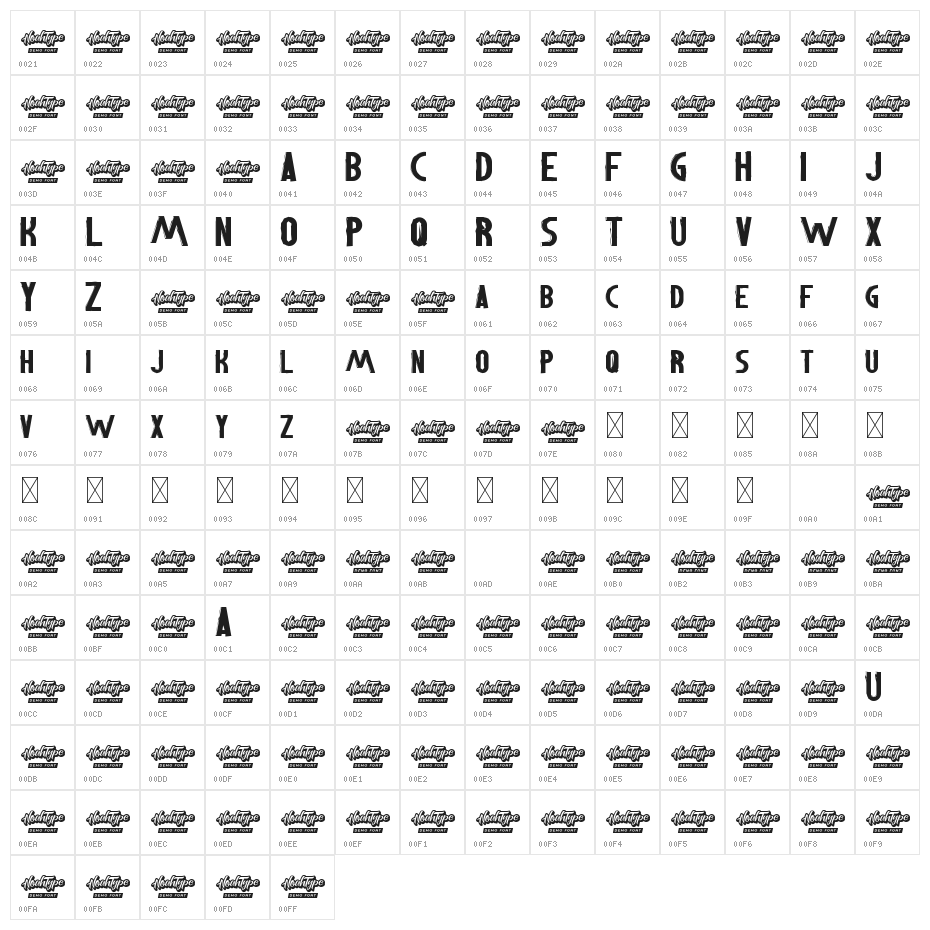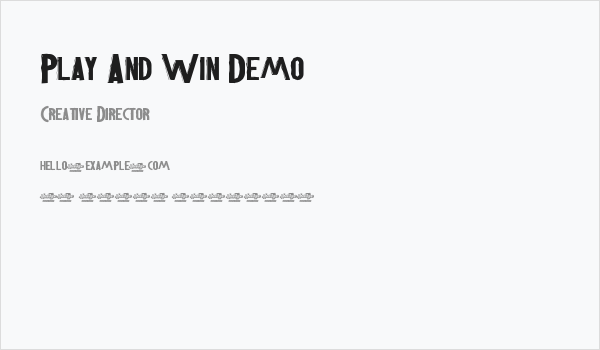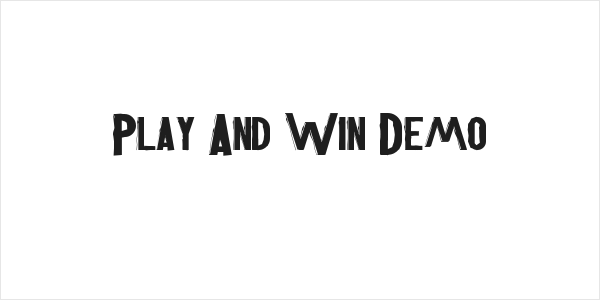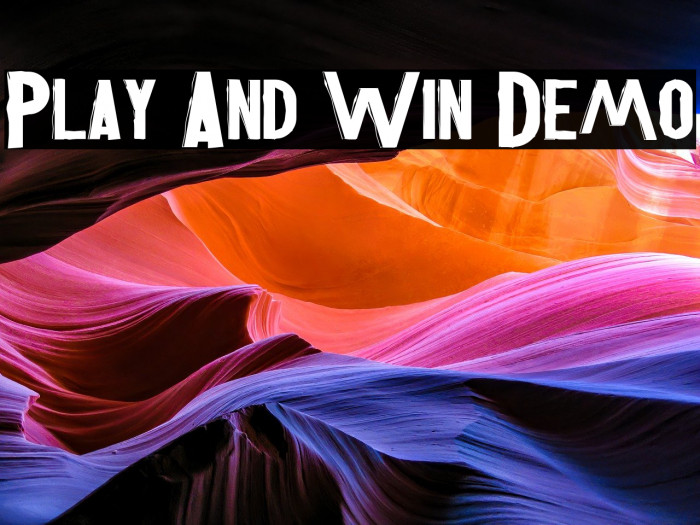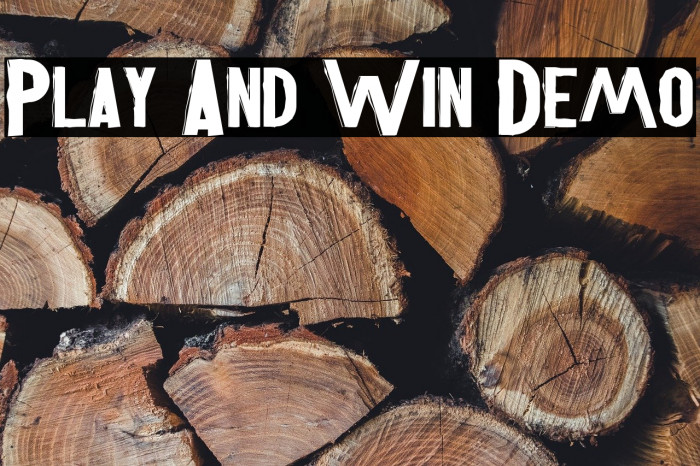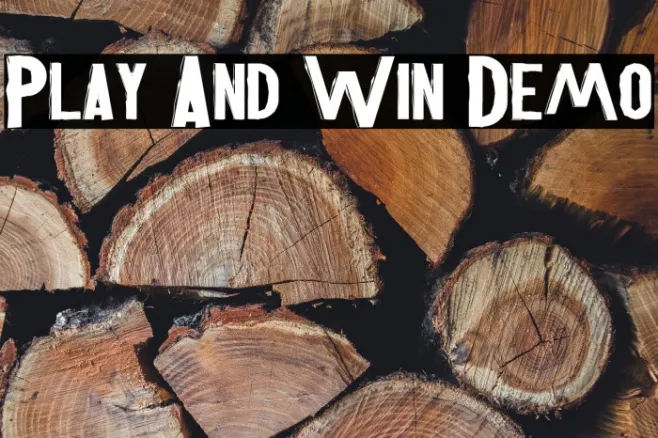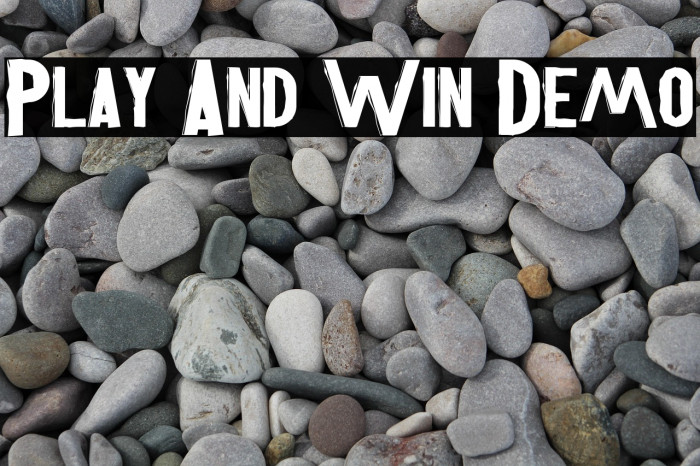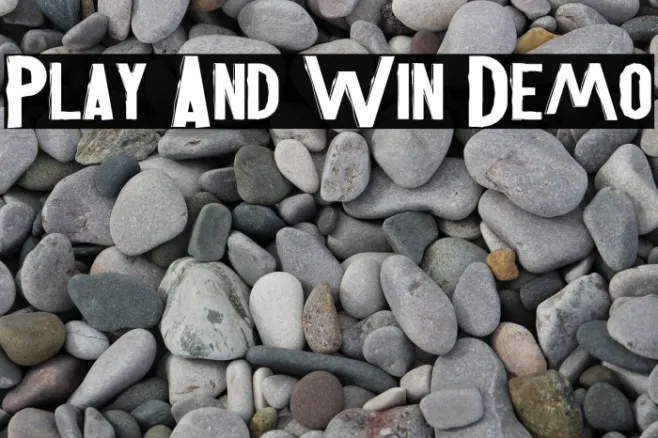
Play And Win Demo Font
This font features a bold and dynamic style with a strong presence. The characters are designed with a slightly rough, hand-drawn appearance, giving it a unique and energetic feel. The uppercase letters are prominent and impactful, making them suitable for attention-grabbing headlines. The font maintains a consistent weight throughout, ensuring readability while adding a touch of artistic flair. Its slightly condensed form allows for efficient use of space, making it versatile for various design applications.
| Proposed Projects | Ideal for posters, branding, sports-related designs, and any project needing a bold, impactful typeface. |